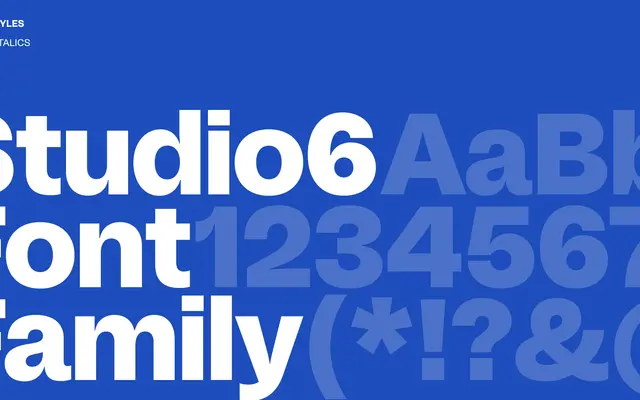
Studio6
A display typeface from Playtype with a dramatic, literary character suited to editorial and cultural contexts.
Studio6 is presented through a sparse, atmospheric specimen that leans into character and narrative rather than technical specification. The page copy, centred on reluctant performance and artistic seduction, frames the typeface as one suited to cultural, editorial or film-adjacent work. Details on weights and language support are limited from the available page content.
The name and the sparse, atmospheric page copy suggest a display typeface with editorial character; classified as display serif based on Playtype's typical output and the dramatic, literary framing of the specimen text.